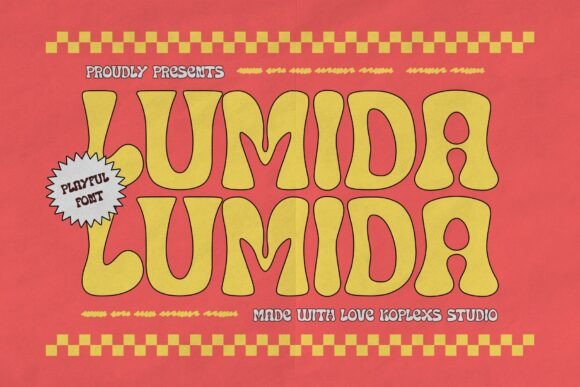
Lumida: The Retro Fun Font for Creative Product Makers
I was staring at a blank screen, trying to finalize the design for my new line of hand-poured soy candles, when I realized my current labels felt too serious. They lacked the spark of joy that makes customers stop scrolling and click "Add to Cart." That is when I discovered Lumida, a playful groovy font designed to add a spark of joy to all your creative projects. Whether you're working on seasonal tags or digital downloads, this typeface instantly transforms mundane packaging into something that feels like a warm hug. As a handmade seller who knows that first impressions are everything, finding a font that screams fun, creativity, and retro charm was exactly what my brand needed.
Lumida Display Fonts for Handmade Candle Labels and Packaging
When designing product labels, the right Lumida display fonts can turn a simple jar into a boutique treasure. I recently tested this font on a sheet of sticker labels for my lavender vanilla blend, and the result was immediate; the groovy curves made the text feel tactile and inviting. Unlike rigid serif or sans-serif options, Lumida brings a distinct personality that suggests quality without being stiff. For small batch makers, using a font with character helps your items stand out in a crowded marketplace. The bold strokes of Lumida ensure that even on tiny bottle necks, your product name remains legible while maintaining that nostalgic, 70s-inspired vibe. It is perfect for short phrases, brand names, and decorative wording where you want to make a statement.
Lumida for Birthday Invitations and Party Stationery Design
Moving beyond physical products, I found that Lumida is an absolute game-changer for creating printable party invitations. When I started designing a birthday invitation suite for a client's daughter, I needed something that felt celebratory but not childish. Lumida provided that perfect balance of retro charm and modern readability. The font's unique weight allows it to hold its own against colorful graphics and floral elements. For digital creators selling stationery templates, offering Lumida as a primary header adds a layer of visual interest that buyers love. It works beautifully for event titles, date highlights, and welcome messages, ensuring your digital download looks premium before the customer even prints it.
Lumida Typefaces for Cricut Projects and Vinyl Cutting
If you use cutting machines like Cricut or Silhouette, selecting the right Lumida file format is crucial for clean cuts. I spent some time testing how this font behaved when cut from vinyl for custom tote bags and mugs. Because Lumida features connected letters and fluid lines, it requires a bit of attention during weeding, but the payoff is worth the effort. The open counters in the letters prevent ink smudging on fabric, making it ideal for apparel designs. For crafters, knowing that Lumida includes various styles means you can create cohesive branding across different merchandise. Whether you are making a sign for a home office or a decal for a laptop, the font maintains its integrity whether scaled up for a large poster or down for a small keychain tag.
Lumida for Wedding Invitations and Elegant Branding Elements
While Lumida is undeniably fun, I was surprised to find it could also elevate wedding stationery when paired correctly. Using Lumida for the main couple names on a save-the-date card created a relaxed yet sophisticated atmosphere. This versatility is rare in display fonts, which often lean too heavily into one specific theme. By combining Lumida with a clean sans serif font for the body text, I achieved a look that was both trendy and timeless. Couples looking for non-traditional weddings often search for fonts that reflect their personalities, and Lumida's retro flair fits perfectly with bohemian, vintage, or mid-century modern themes. It proves that a creative font doesn't have to sacrifice elegance for style.
Lumida Commercial Fonts for Shop Branding and Social Media Graphics
Building a recognizable brand identity requires consistency, and Lumida offers the visual punch needed for social media graphics. I used this font to update my Etsy shop banner and listing images, noticing an immediate increase in engagement. The font's ability to convey emotion helps customers connect with your story before they even read the description. When designing promotional posts for holiday sales or new product launches, Lumida grabs attention in a busy feed. For commercial use, it is essential to check the licensing details to ensure you can sell physical products featuring the design. Once verified, Lumida becomes a powerful asset in your design toolkit, allowing you to produce high-quality marketing materials that align with your brand's joyful aesthetic.
Lumida for Printable Wall Art and Planner Pages
For digital creators focusing on printables, Lumida adds a touch of whimsy to wall art and planner pages. I recently designed a set of motivational quotes for a productivity planner, and the font gave the pages a friendly, encouraging tone. The varying weights available in the family allow for dynamic layouts where headers pop against softer background text. Buyers of digital downloads appreciate when the included fonts are unique and well-structured, and Lumida delivers on both counts. It is particularly effective for seasonal designs, such as autumn harvest signs or summer beach vibes, where the retro charm enhances the thematic mood. The font supports multilingual characters, making it accessible for a global audience of creatives.
How Lumida Elevates Your Product Presentation and Quality
The choice of typography directly influences how customers perceive the quality of your handmade goods. When I switched to Lumida for my product mockups, the entire presentation looked more polished and professional. The font's retro charm evokes a sense of nostalgia that resonates deeply with modern consumers who value authenticity. By integrating Lumida into your design workflow, you signal that you care about every detail, from the label on the jar to the font on the website. This attention to detail builds trust and encourages repeat purchases. Whether you are crafting stickers, designing signage, or creating digital templates, Lumida ensures your work stands out as a premium product in a sea of generic options.